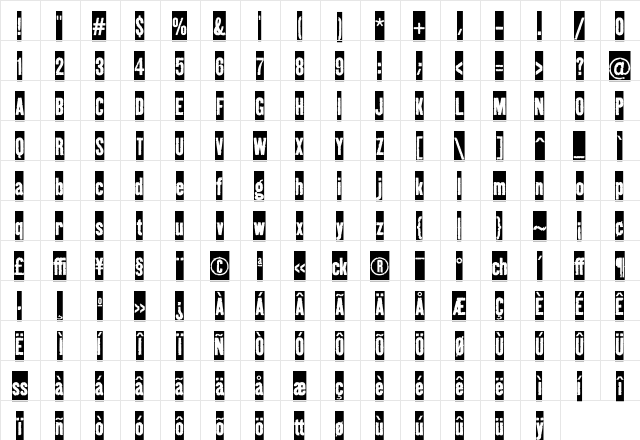
Kipp No4
Design Context for Kipp Typeface
Kipp offers clean, dependable letterforms without strong stylistic allegiance, making it a practical choice for designers who need flexibility.